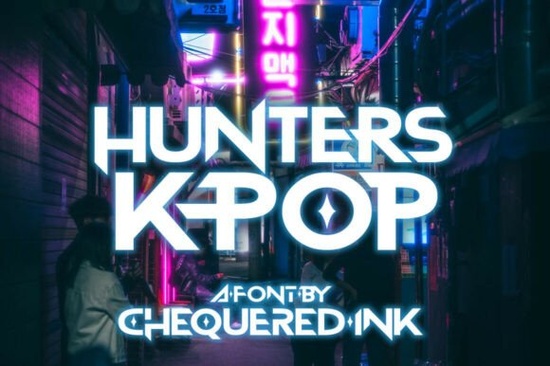
If you're working on a design that needs bold, modern energy especially with a Korean pop influence you’ve probably been searching for a font that captures that sharp, rhythmic feel. That’s where Hunters K-pop Font comes in. With its clean lines, straight edges, and cut-out counters, it mirrors the visual language often seen in K-pop album art, concert visuals, and even gaming interfaces. It’s not just stylish it’s functional for creators who want their work to resonate with fans of contemporary Asian pop culture.
This display font works especially well when you need text to stand out without overwhelming your layout. Whether you’re designing merch for a fan page, creating thumbnails for YouTube content, or laying out a digital zine inspired by Seoul’s vibrant music scene, Hunters K-pop brings the right mix of attitude and clarity.
What makes this font different from other display fonts?
Many display fonts lean into curves, retro vibes, or hand-drawn textures but Hunters K-pop is built on geometry and contrast. The negative space inside letters (like the “o” or “e”) is intentionally carved out, giving it an almost stencil-like appearance. This style echoes the aesthetics used by real K-pop agencies in promotional materials, where legibility meets high-impact visuals.
Compare that to something like Harlow Chunky, which uses thick, rounded forms for a playful look, or Vintage Western, which leans into rustic serif details. Hunters K-pop doesn’t mimic handwriting or historical styles; it’s forward-looking and digital-native.
Where can you actually use Hunters K-pop Font?
Thanks to its strong presence and clean structure, this font shines in both print and digital spaces:
- Album covers and EP artwork – especially for indie artists drawing from K-pop, synthwave, or electronic genres
- Merchandise designs – T-shirts, tote bags, or phone cases targeting K-pop fandoms
- Social media graphics – Instagram posts, TikTok overlays, or Twitter banners that need instant visual punch
- Gaming UI elements – menus, HUDs, or character nameplates in indie games with urban or futuristic themes
- Event posters – for concerts, dance battles, or fan meetups with a modern aesthetic
It’s worth noting that while Hunters K-pop has personality, it’s still highly readable at medium to large sizes unlike some ultra-stylized fonts that sacrifice function for flair.
How does it pair with other fonts?
Because Hunters K-pop is so distinctive, it works best as a headline or accent font. For body text or supporting copy, pair it with something neutral and clean like a sans-serif with open spacing. If you’re building a full brand identity around it, consider balancing its sharpness with softer complementary fonts.
For example, if you’re designing a summer-themed K-pop fan event, you might combine Hunters K-pop for the main title with something airy like Summer Flower for subtitles or decorative accents. Or, if you’re going for a more grounded, urban look, Jake Font offers a sturdy, no-nonsense contrast. And if your project blends nostalgia with modern flair, Back to Vintage could add a retro layer beneath the K-pop edge.
Who is this font really for?
If you run a small print-on-demand shop selling fandom gear, this font gives you an authentic touch without needing to license official K-pop assets. Crafters making custom stickers, planners, or wall art for teen audiences will find it instantly appealing. Digital designers working on motion graphics or game assets can rely on its crisp vector shapes for scaling across resolutions.
And importantly, it’s beginner-friendly. You don’t need advanced typography skills to make it look good just size it right, give it breathing room, and let the design do the talking.
When used thoughtfully, Hunters K-pop Font isn’t just a typeface it’s a visual cue that tells your audience, “This is current, bold, and made for fans who live in the rhythm of the beat.”